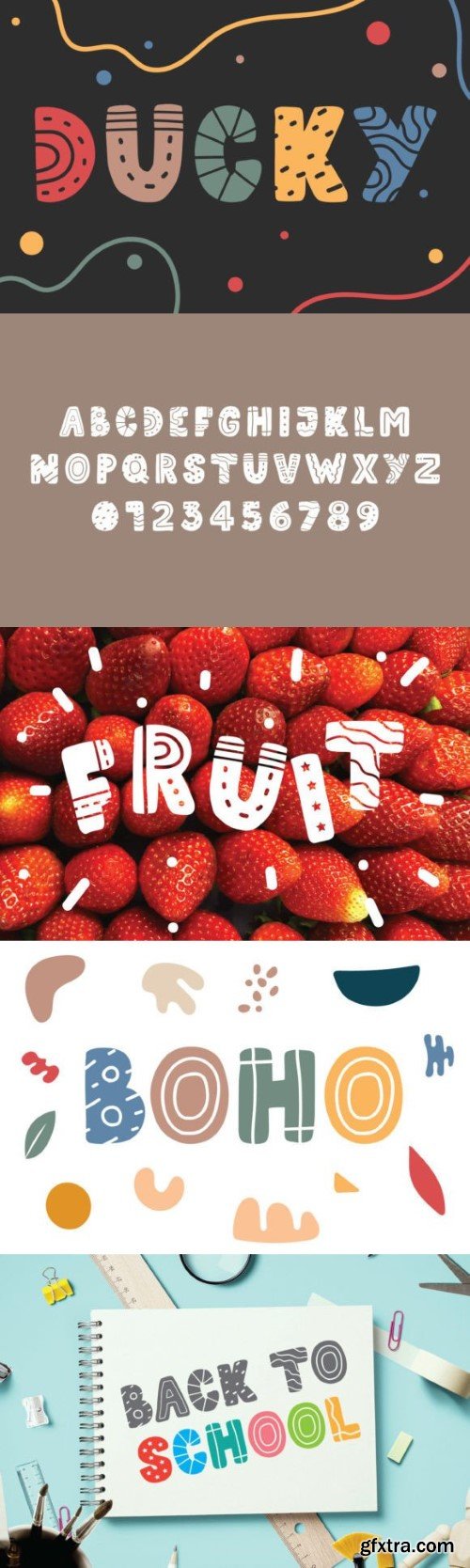
Ducky Font
Ducky is a Cute Handwriten Font with abstract shape inside.
Ducky is perfect for any titles, logo, product packaging, branding project,
megazine, social media, wedding, or just used to express words above the background.
Ducky is perfect for any titles, logo, product packaging, branding project,
megazine, social media, wedding, or just used to express words above the background.